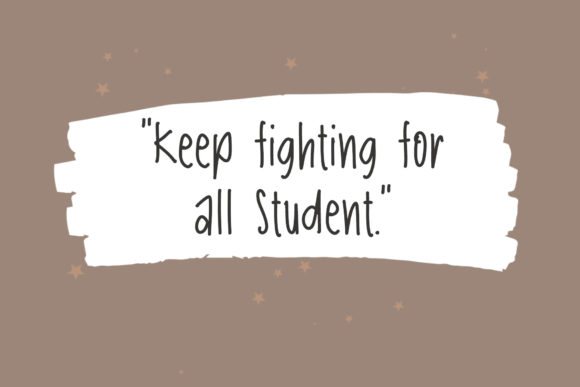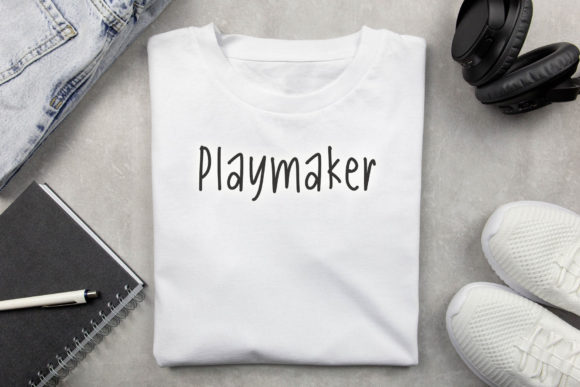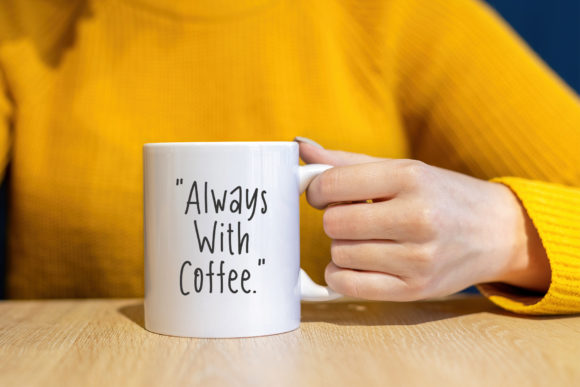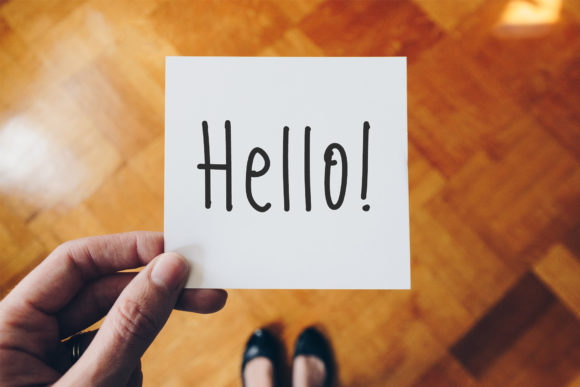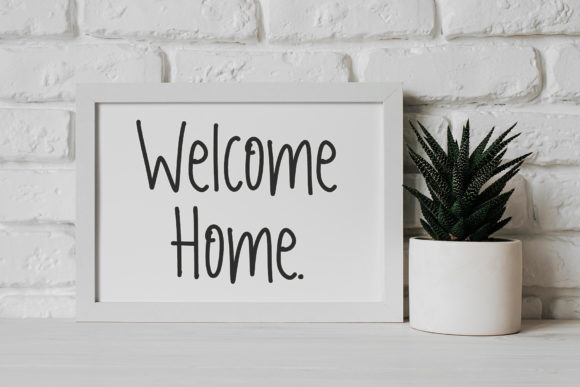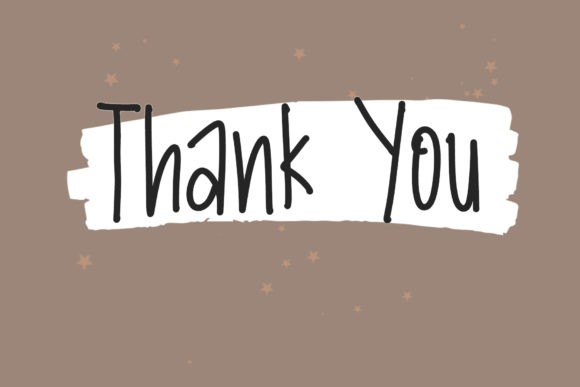
Introduction to Jumpheart Font
Have you ever been working on a creative project, staring at a blank canvas or page, and suddenly a spark of inspiration hits you? The ideas start flowing, and you can envision the perfect design. This is where the right font can make all the difference. Enter the Jumpheart Font, a simple and thin-lettered handwritten font that’s about to become your new best friend.
With its versatility and high-quality design, the Jumpheart Font is a valuable resource for designers looking to add a fun and friendly touch to their projects. Whether you’re working on a design that requires a transparent background or a creative project that needs a unique flair, this font is sure to impress. And the best part? It’s available for free download, making it an accessible design resource for anyone looking to elevate their work.
So, what makes the Jumpheart Font so special? Keep reading to find out why this adaptable font is a must-have for any designer looking to take their projects to the next level.
Key Features of Jumpheart Font
- Unique, hand-drawn design with a creative and playful feel, making it perfect for a variety of projects, from logos to greeting cards.
- High-quality font with a transparent background, allowing for easy customization and blending with any design.
- Comes in multiple weights and styles, providing designers with a versatile tool for creating a wide range of visual effects.
- Designed to be scalable, ensuring that the font remains crisp and clear at any resolution, from low to high.
- Perfect for designers looking for a unique and creative font to add a personal touch to their projects.
Honest Review: Jumpheart Font
I recently stumbled upon the Jumpheart Font and was excited to give it a try in my next creative project. As a designer, I appreciate high-quality fonts that can elevate the overall look and feel of a design.
Here are some things that worked well for me:
- ✨ Unique and playful style: The Jumpheart Font has a distinctive look that’s perfect for designs that need a bit of whimsy.
- ✨ Transparent background option: I love that this font allows for a transparent background, making it easy to use in designs where I need a subtle texture or background image.
- ⚠️ Limited font weights: The Jumpheart Font only comes in a few font weights, which might limit its versatility in certain designs.
- ⚠️ Not ideal for small text: While the font looks great in larger sizes, it can be difficult to read in smaller text sizes.
Overall, I’d say the Jumpheart Font is a solid addition to any designer’s toolkit. While it may not be perfect, its unique style and transparent background option make it a great choice for creative projects where a bit of personality is needed.
Getting the Most Out of Jumpheart Font
To get the most out of the Jumpheart Font, use it in combination with other design elements to create a visually appealing design. Experiment with different font sizes, colors, and styles to achieve the desired effect.
Common Use Cases for Jumpheart Font
The Jumpheart Font is suitable for various design projects, including logo designs, business cards, and social media graphics. Its high-quality design and transparent background make it a versatile design resource for creative projects.